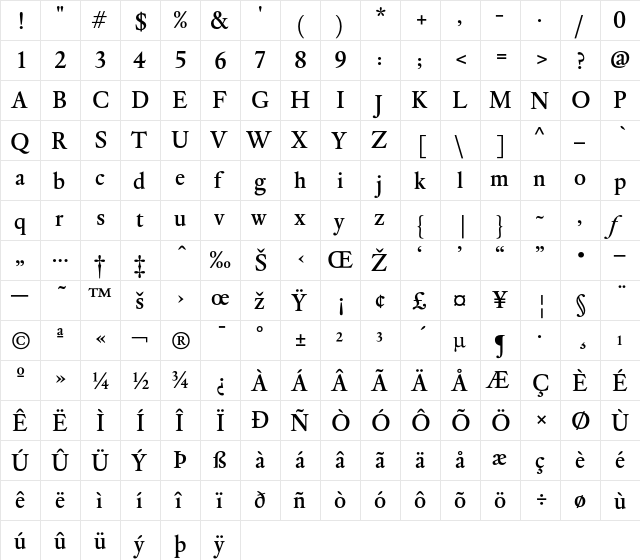
DTLElzevirTMedium Regular
Design Context for DTLElzevirTMedium Typeface
DTLElzevirTMedium offers clean, dependable letterforms without strong stylistic allegiance, making it a practical choice for designers who need flexibility.